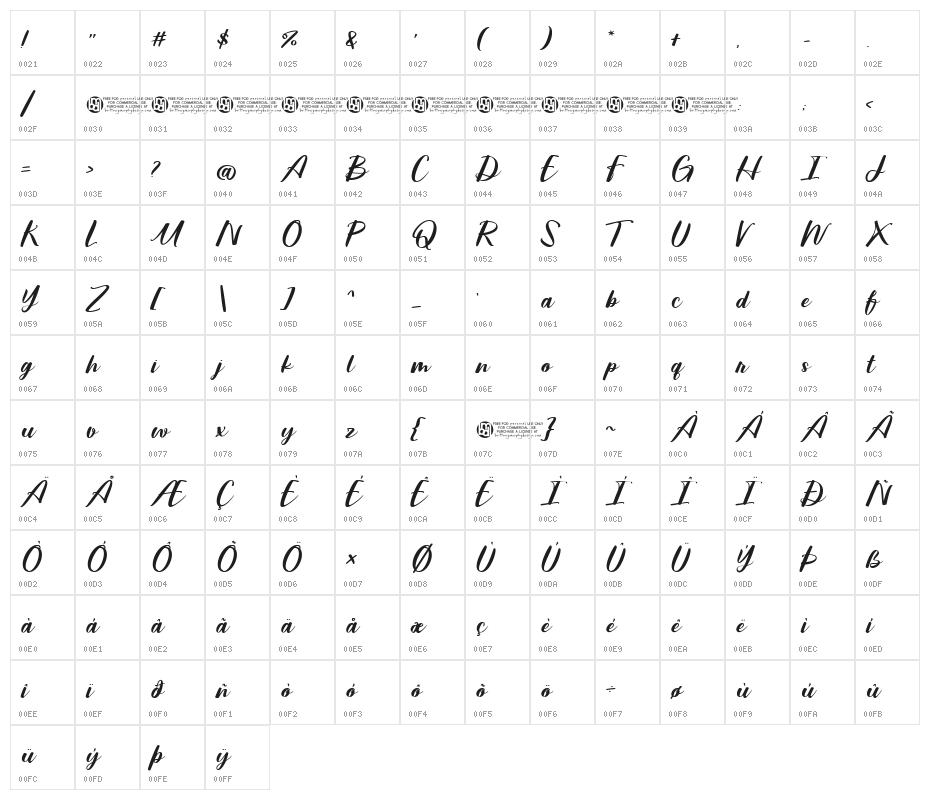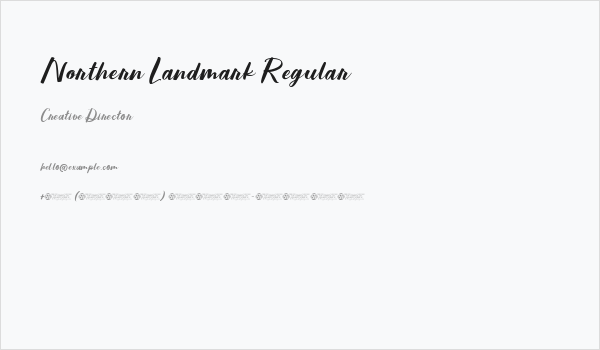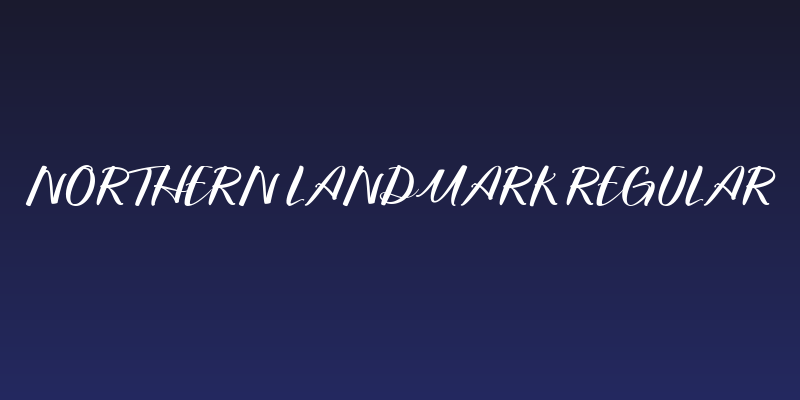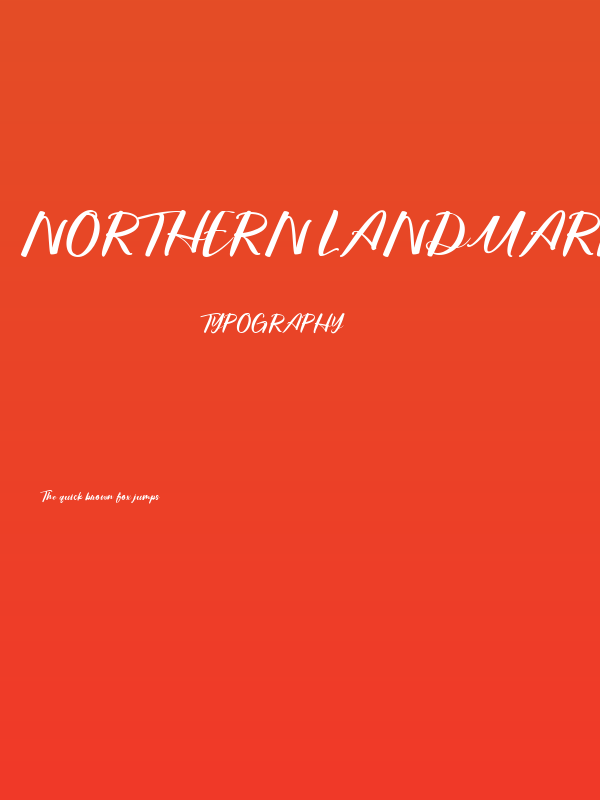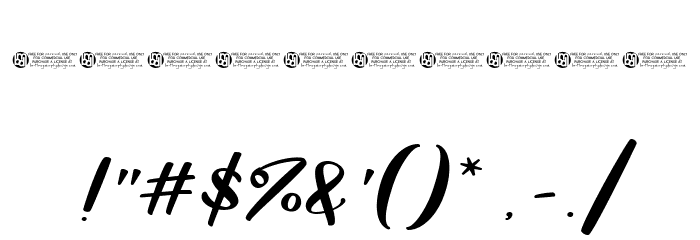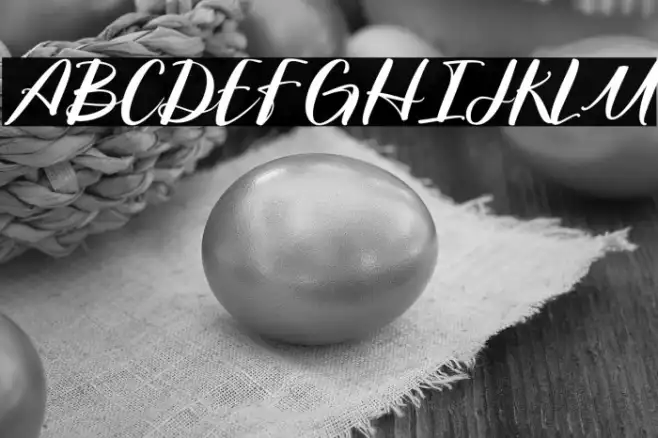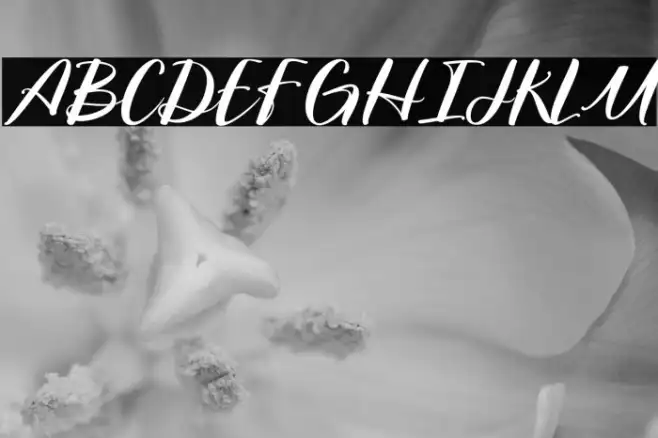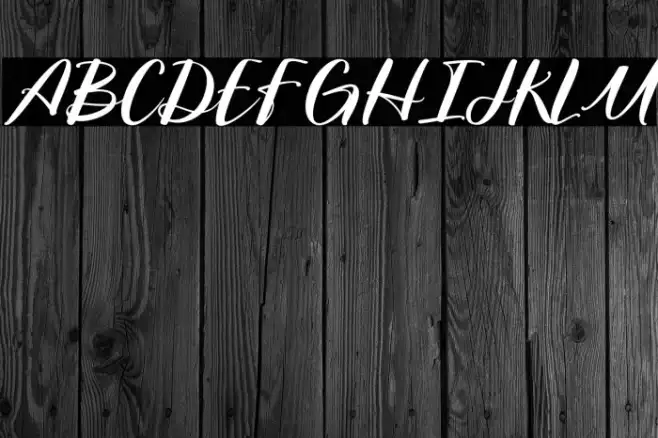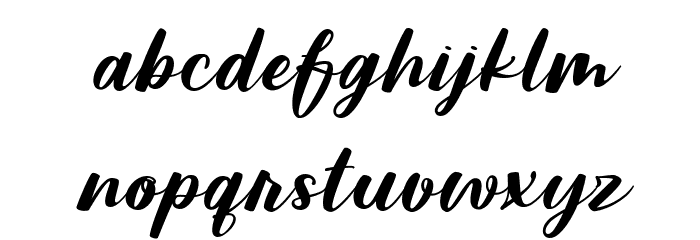
Northern Landmark Regular Font
Northern Landmark Regular Description
This font features a dynamic and flowing script style, characterized by its elegant and cursive letterforms. The uppercase letters exhibit a graceful, sweeping motion, while the lowercase letters maintain a consistent rhythm with smooth curves and loops. The font's design is reminiscent of traditional calligraphy, yet it retains a modern flair, making it versatile for various design applications. The special characters are crafted with the same attention to detail, ensuring a cohesive look across all glyphs. Its overall appearance is both sophisticated and approachable, suitable for projects that require a personal touch.